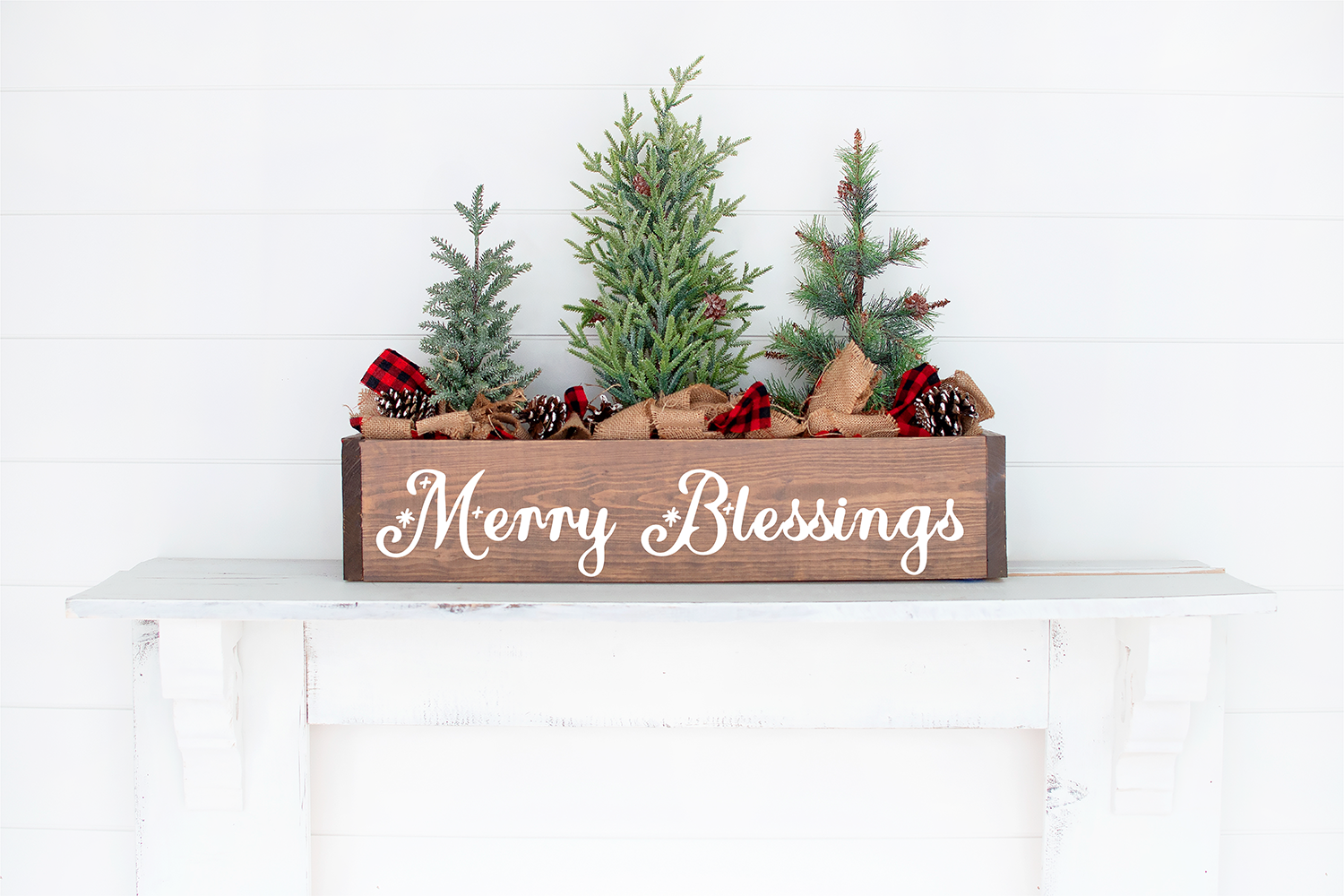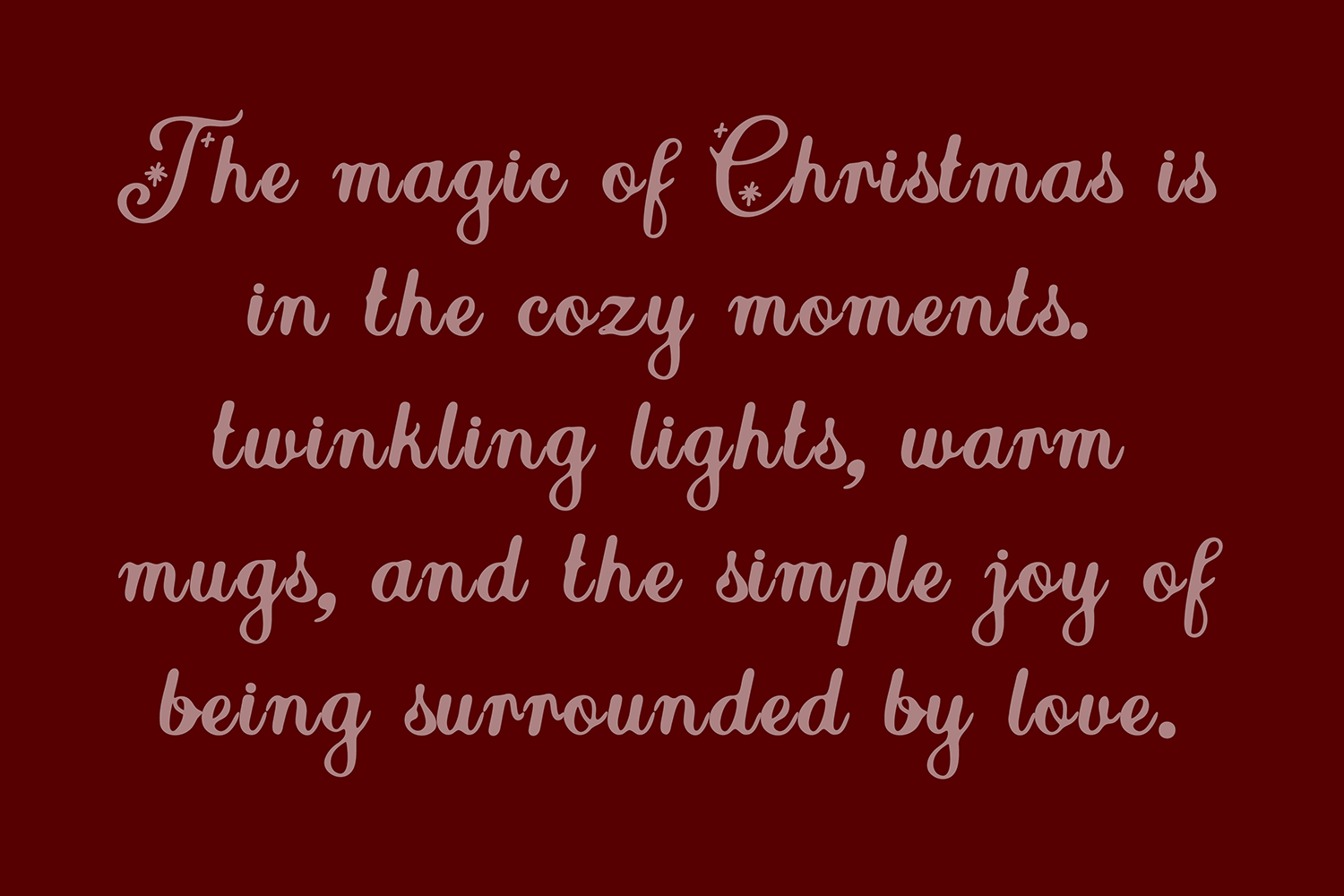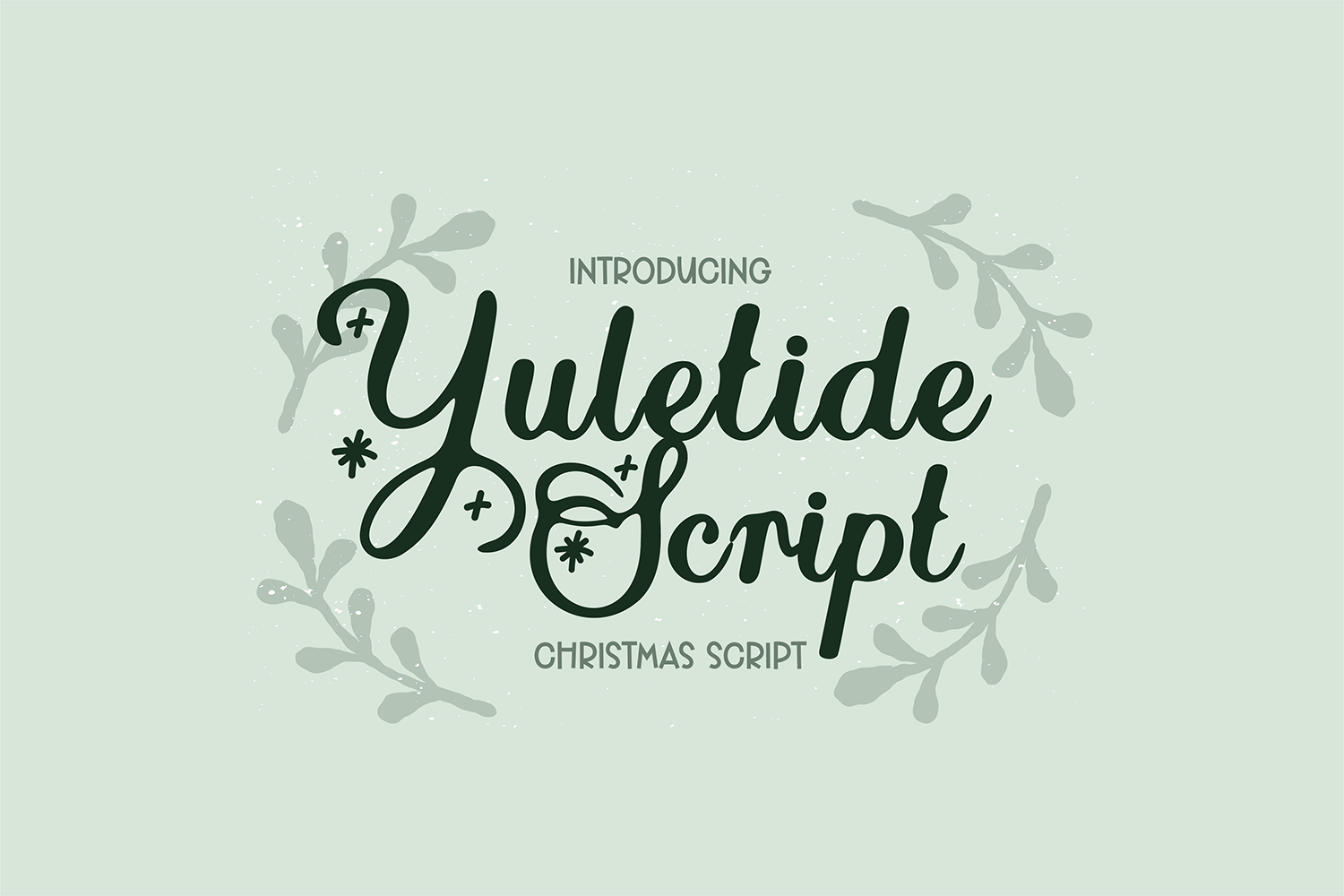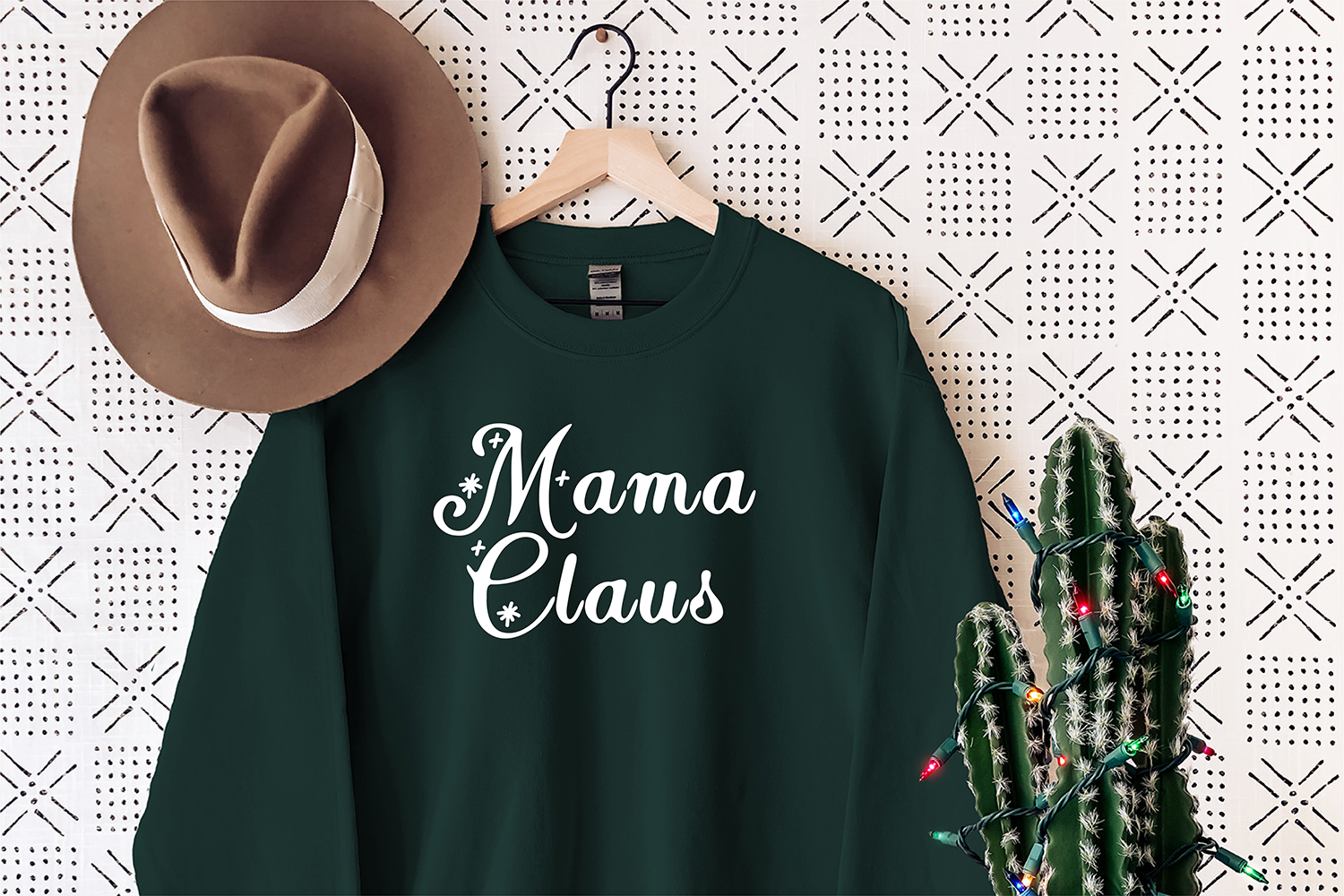
"Yuletide Script" a brush winter script Christmas font with sparkle
Yuletide is a vintage script font. This font is great for holiday decor, cards, and farmhouse living.